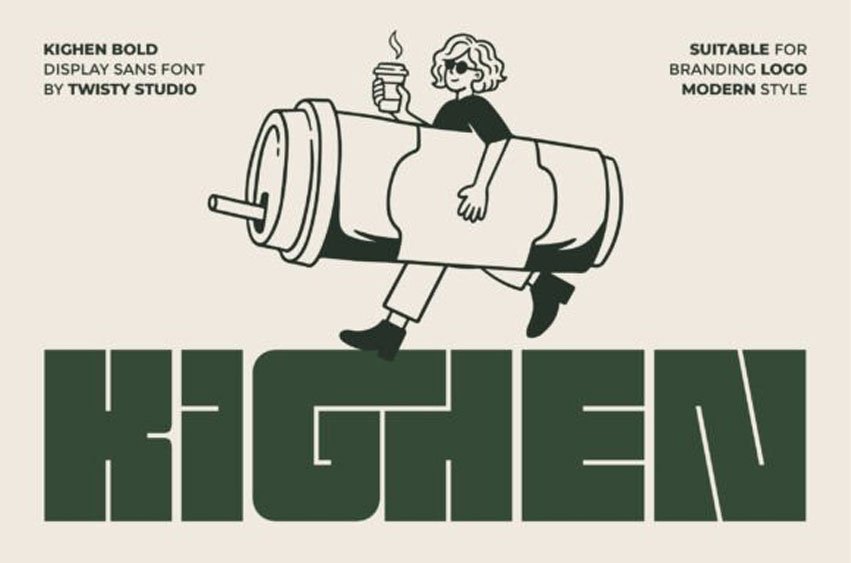
Kighen Font is a bold display font crafted to deliver strong visual impact and modern character. With its thick strokes, clean shapes, and confident structure, Kighen creates a powerful and eye-catching presence that stands out in any design.
Designed for high visibility, Kighen combines boldness with clarity. Its balanced proportions and solid construction ensure excellent readability while maintaining a distinctive and contemporary style perfect for logo and branding with modern style.